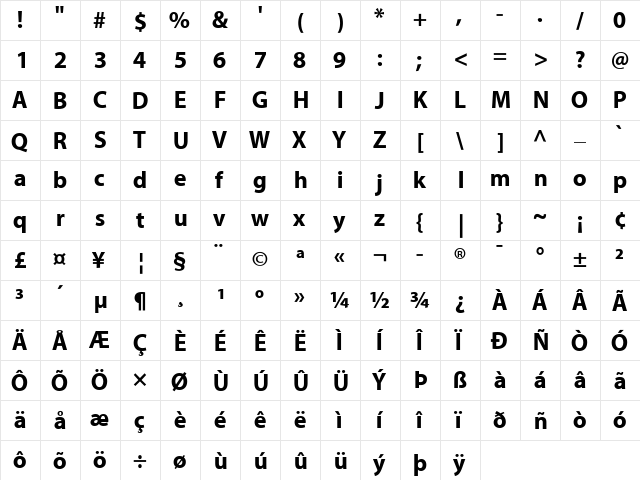
Myriad Headline Regular
Design Context for Myriad Headline Typeface
Myriad Headline is a composed and adaptable typeface that performs quietly and consistently across a wide range of design contexts.
Pro Tip: Use Myriad Headline in both headline and body roles to test its range before committing to a single application.